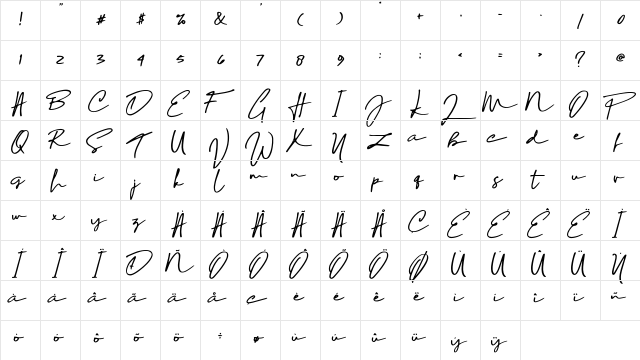
Sophia Bella DEMO Signature Font Preview
Sophia Bella DEMO Signature
Sophia Bella DEMO Signature Font Details
| Style | Signature |
| Foundry | Suandana I Pande Made |
| Designer | Suandana I Pande Made |
Design Context for Sophia Bella DEMO Typeface
Sophia Bella DEMO is a composed and adaptable typeface that performs quietly and consistently across a wide range of design contexts.